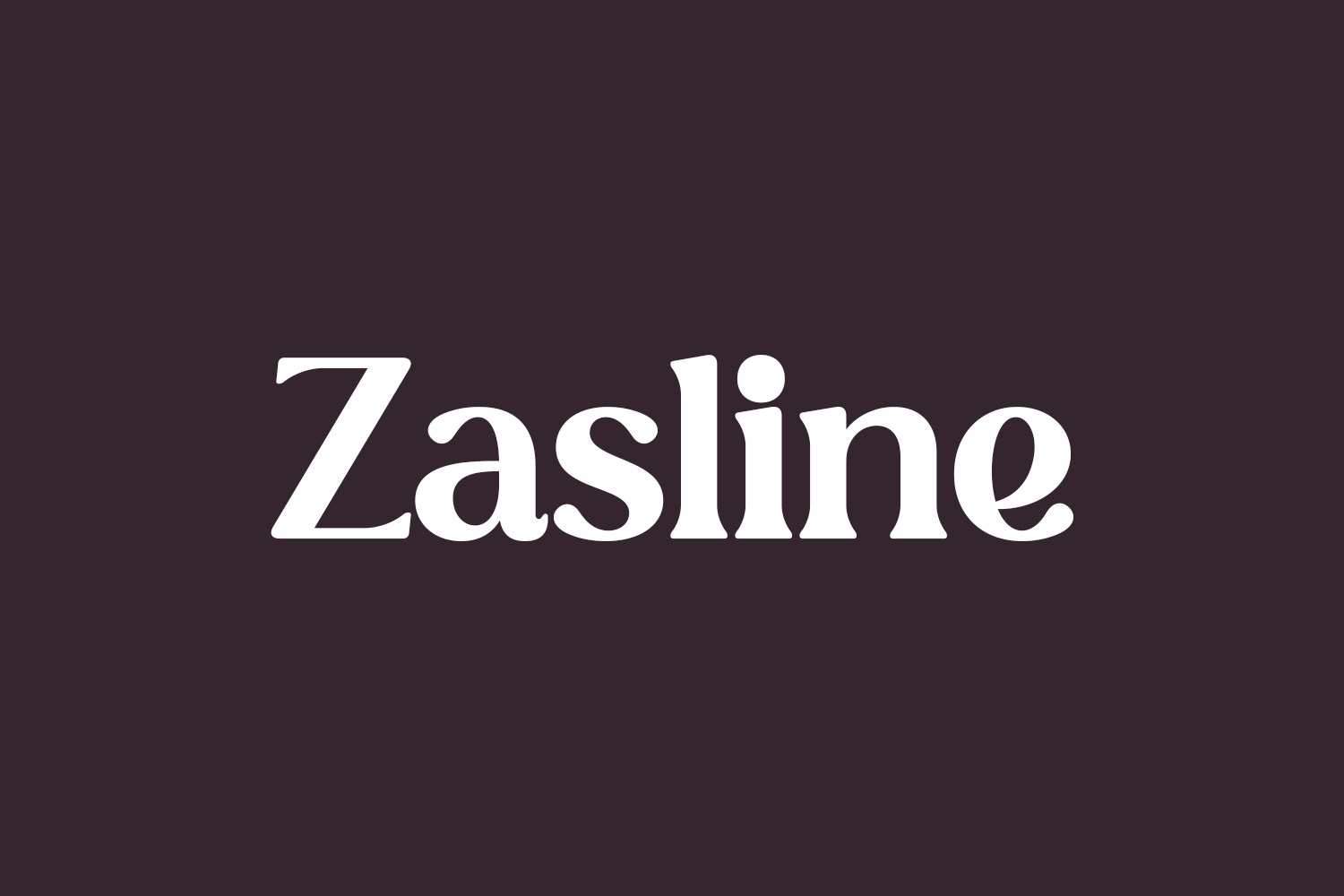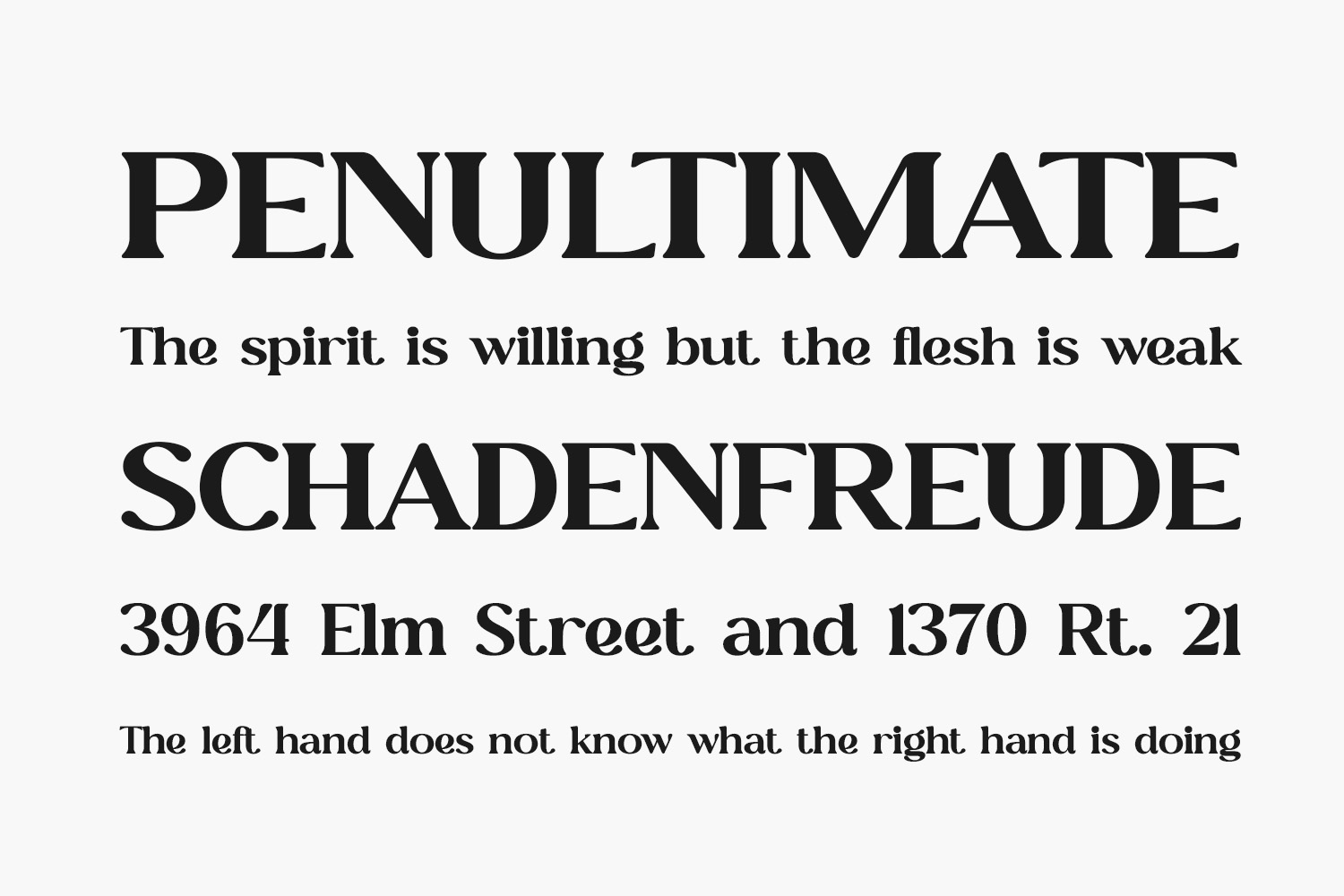
Zasline Free Font, a timeless serif font, boasts a distinctive style and contemporary appeal. Ideal for creating sophisticated and luxurious designs such as logos, books, films, fashion brands, magazines, apparel, lettering, quotes, and beyond, it adds a touch of elegance to any project. Zasline Free Font is free for personal use only. Please purchase the full version for commercial use.